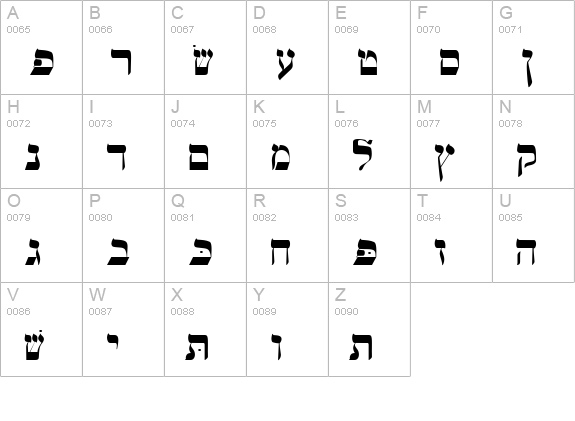
Alefbet Font Details
Alefbet font is a beautifully crafted typeface that combines elegance and simplicity, making it perfect for a wide range of design projects. Its clean lines and modern aesthetic make it a versatile choice for everything from branding to editorial design. The unique character shapes add a touch of sophistication to any layout, while still maintaining readability and clarity. What sets Alefbet font apart is that it is available for free download at FontsMarket.com. This means that designers and creatives can easily access this stunning typeface without any cost, making it a valuable addition to any font collection. Whether you're working on a logo, website, or print materials, Alefbet font is sure to elevate your design with its timeless style and versatility. Download it today and enhance your projects with this exceptional font.